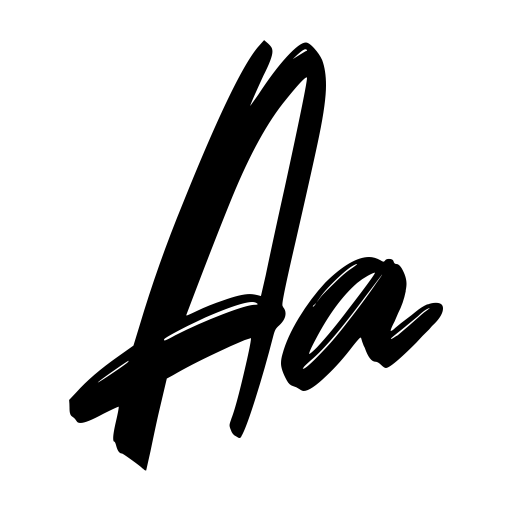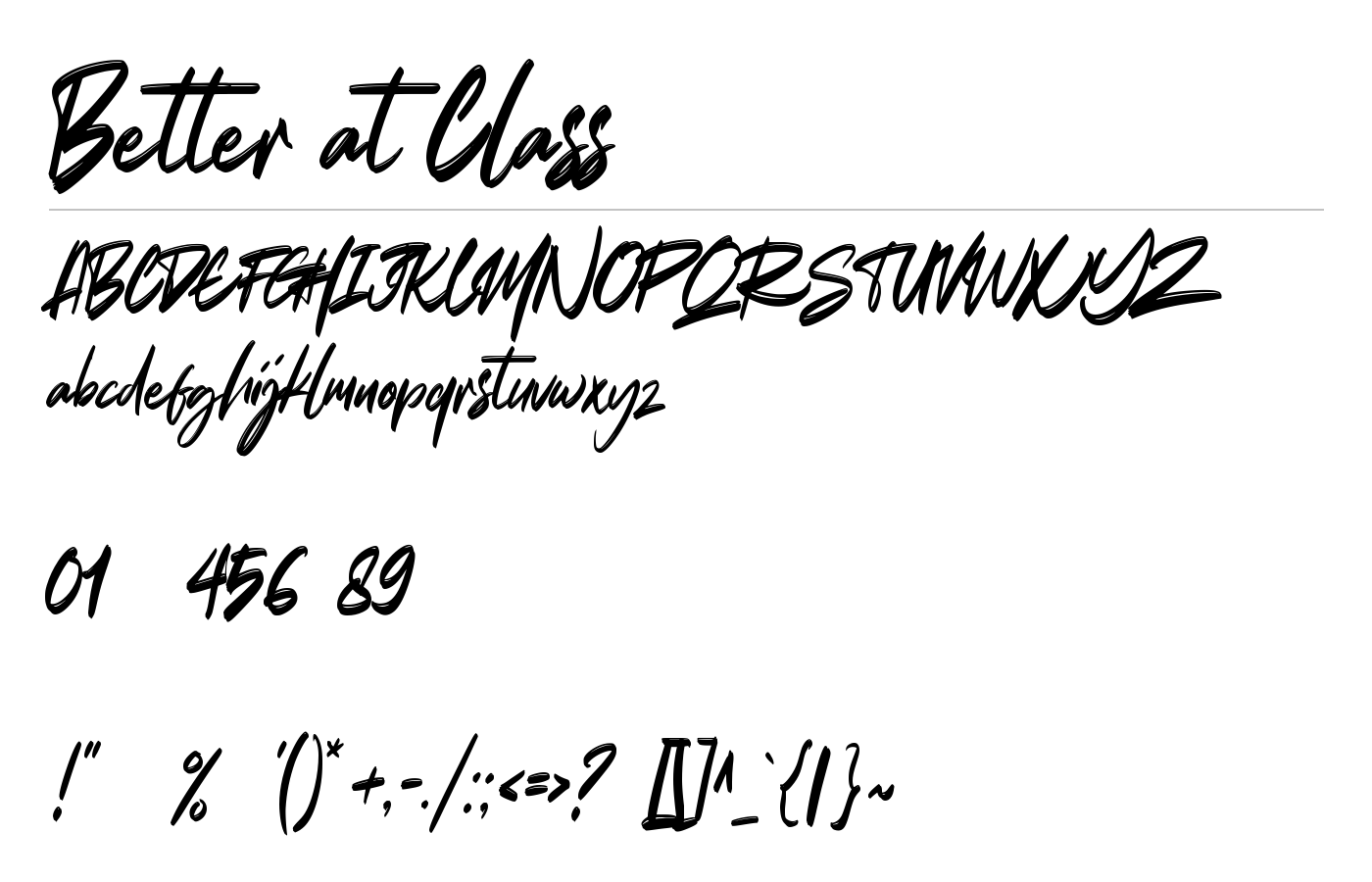
Better at Class is an energetic, handwritten script font with a bold, brushstroke style that conveys a lively and casual feel. Its tall and narrow letterforms, combined with dynamic strokes and slight irregularities, make it perfect for creative, youthful branding, eye-catching headlines, and informal designs that want to communicate personality and vibrancy. This font works best in contexts where a hand-crafted, expressive vibe is desired, such as posters, social media graphics, and trendy packaging.
Better at Class Font
About Better at Class Font